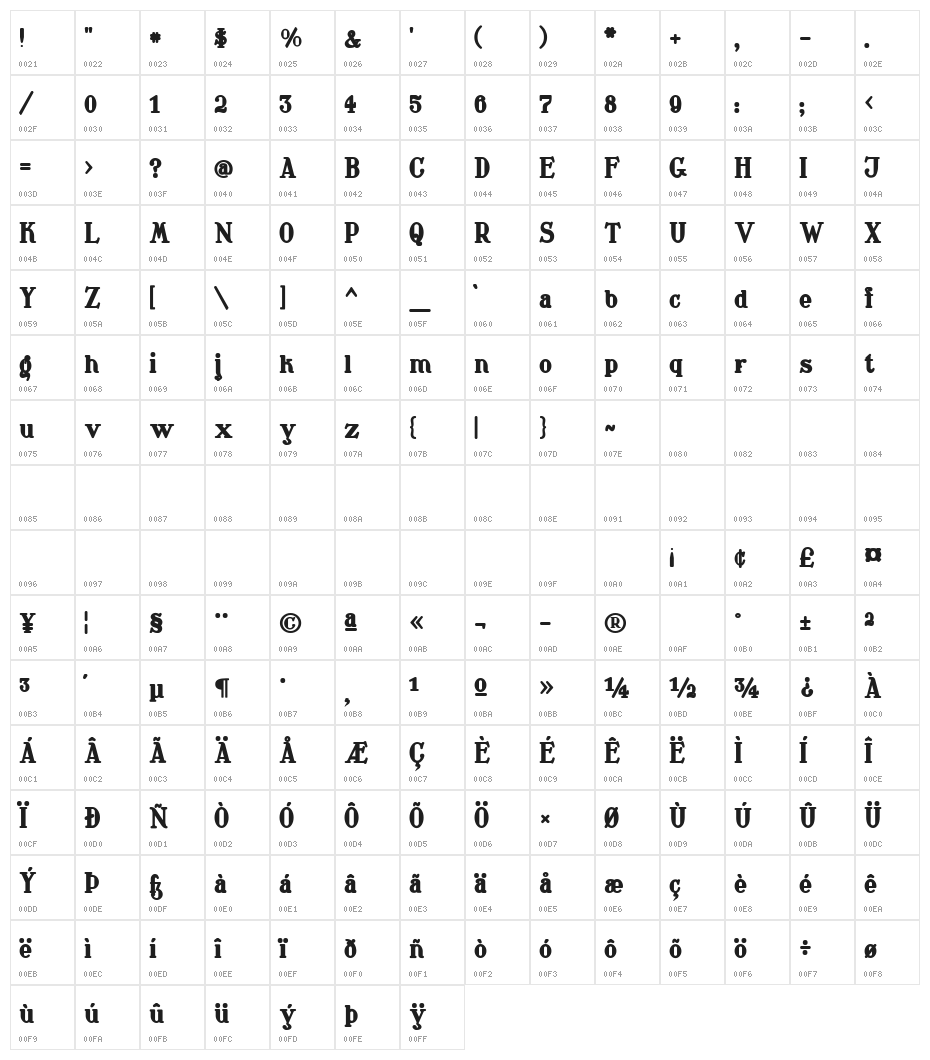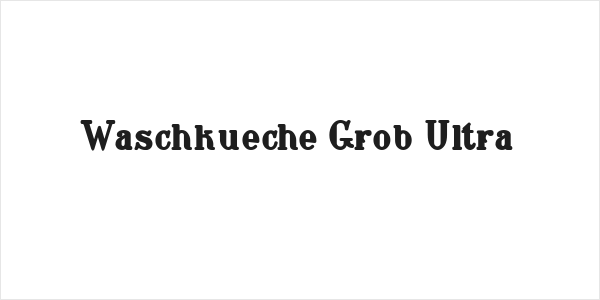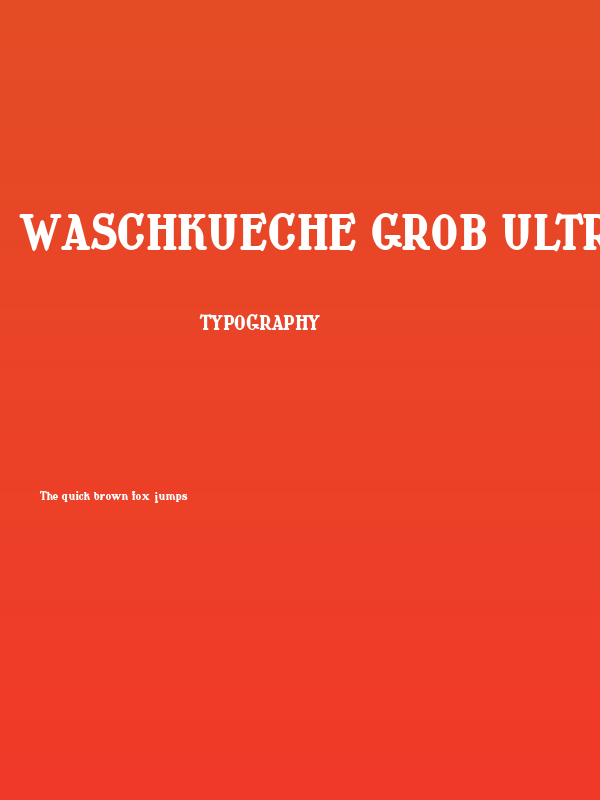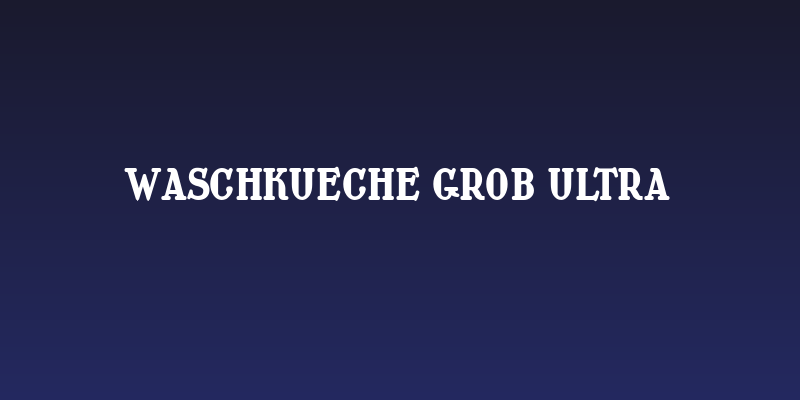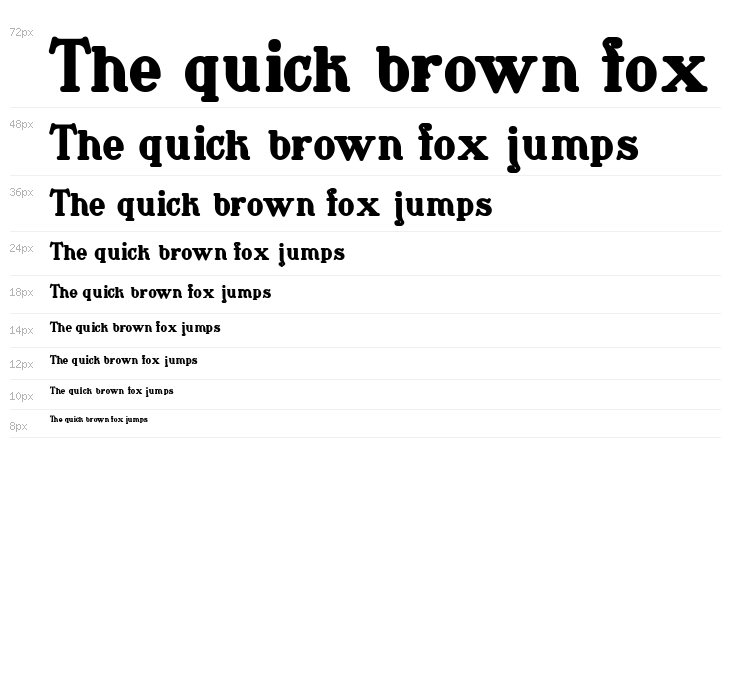
Waschkueche Grob Ultra Font
Waschkueche Grob Ultra Description
This font features a bold and robust design with thick strokes and a strong presence. The characters are slightly condensed, giving it a compact appearance while maintaining readability. The serifs are prominent and add a touch of vintage charm, reminiscent of classic typewriter fonts. The uppercase letters are uniform in height, while the lowercase letters have a playful, rounded quality. Numbers and special characters are consistent with the overall style, ensuring a cohesive look across all text elements. The font's boldness makes it ideal for attention-grabbing headlines and impactful designs.